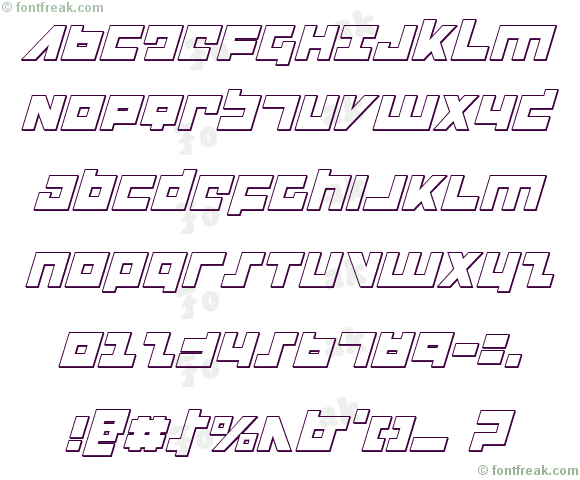
Flight Corps 3D
About Flight Corps 3D
The Flight Corps 3D font by Daniel Zadorozny is a striking display typeface that falls under the decorative category. Released in 2008, this font captures a unique blend of modernity and creativity, making it an excellent choice for various design projects. The font features a condensed style with italicized, left-aligned characters that give it a dynamic and energetic feel. Its three-dimensional appearance adds depth, making it stand out in any layout. The stroke weight is consistent, contributing to a clean and cohesive look, while the spacing between characters is well-balanced, enhancing readability without sacrificing the font's bold personality.
Flight Corps 3D is particularly well-suited for use cases that call for attention-grabbing visuals. It can be effectively utilized in movie posters where a sense of adventure and excitement is desired, or in branding for aviation-themed events and businesses. Additionally, it works well for promotional materials, such as flyers or banners, that aim to convey a sense of movement and innovation. Graphic designers and small business owners will find it invaluable for creating captivating visuals that resonate with their target audiences.
This font's unique characteristics make it stand out in a crowded marketplace. The combination of its three-dimensional design and italicized form creates a sense of forward motion, making it ideal for any project requiring a modern and adventurous flair. Whether you are a content creator looking to enhance your brand's visual identity or a designer seeking to make a memorable statement, the Flight Corps 3D font free download offers an exciting opportunity to elevate your work. With its versatility and distinctive style, it is sure to leave a lasting impression.